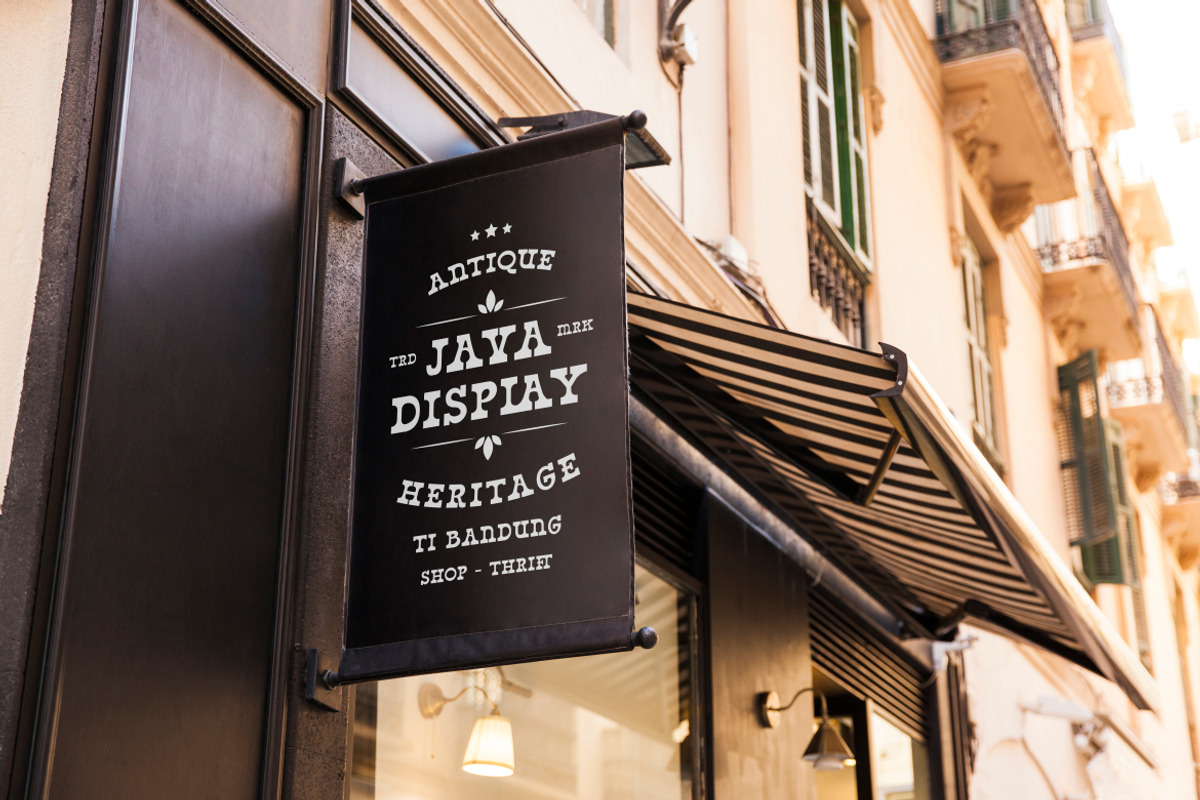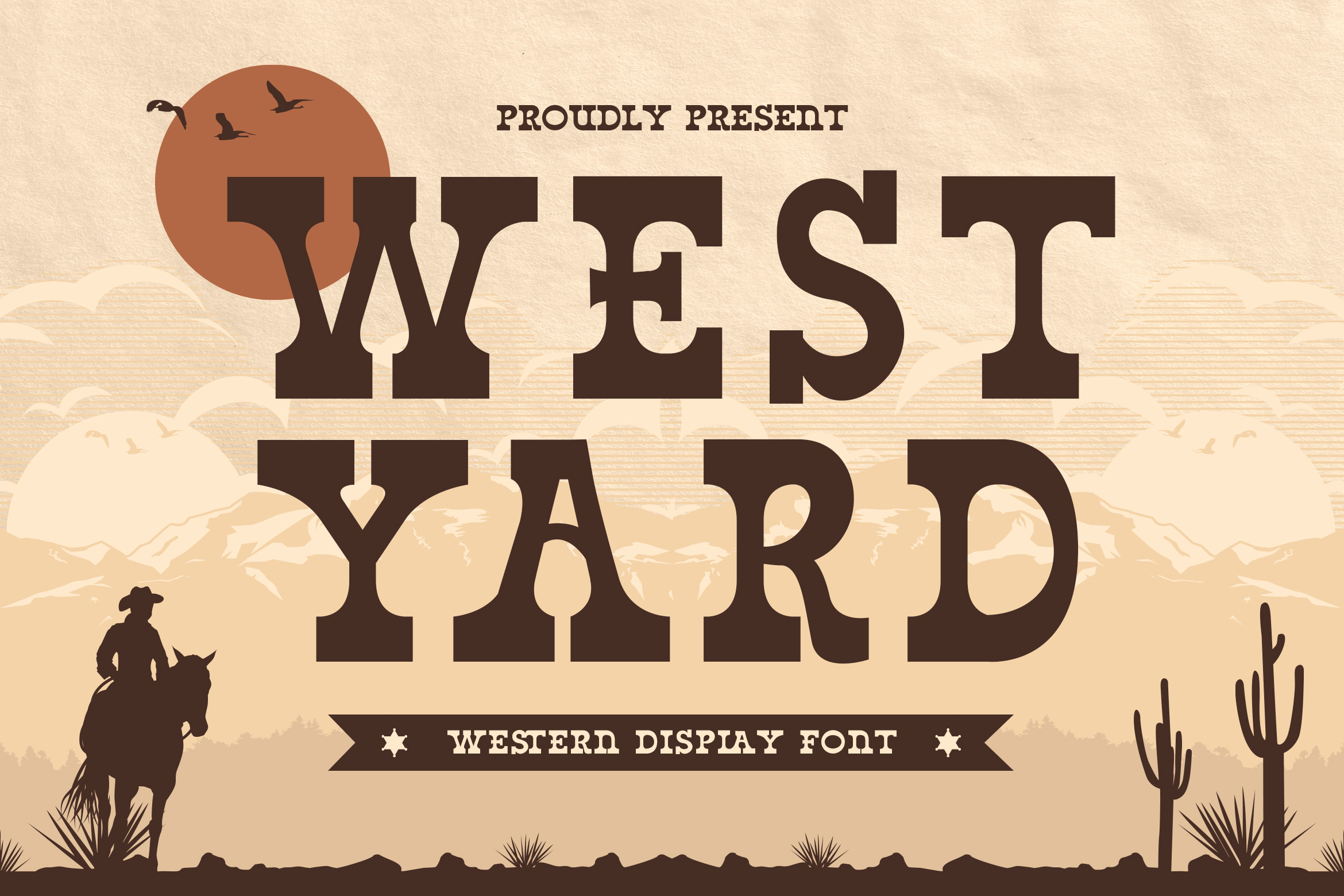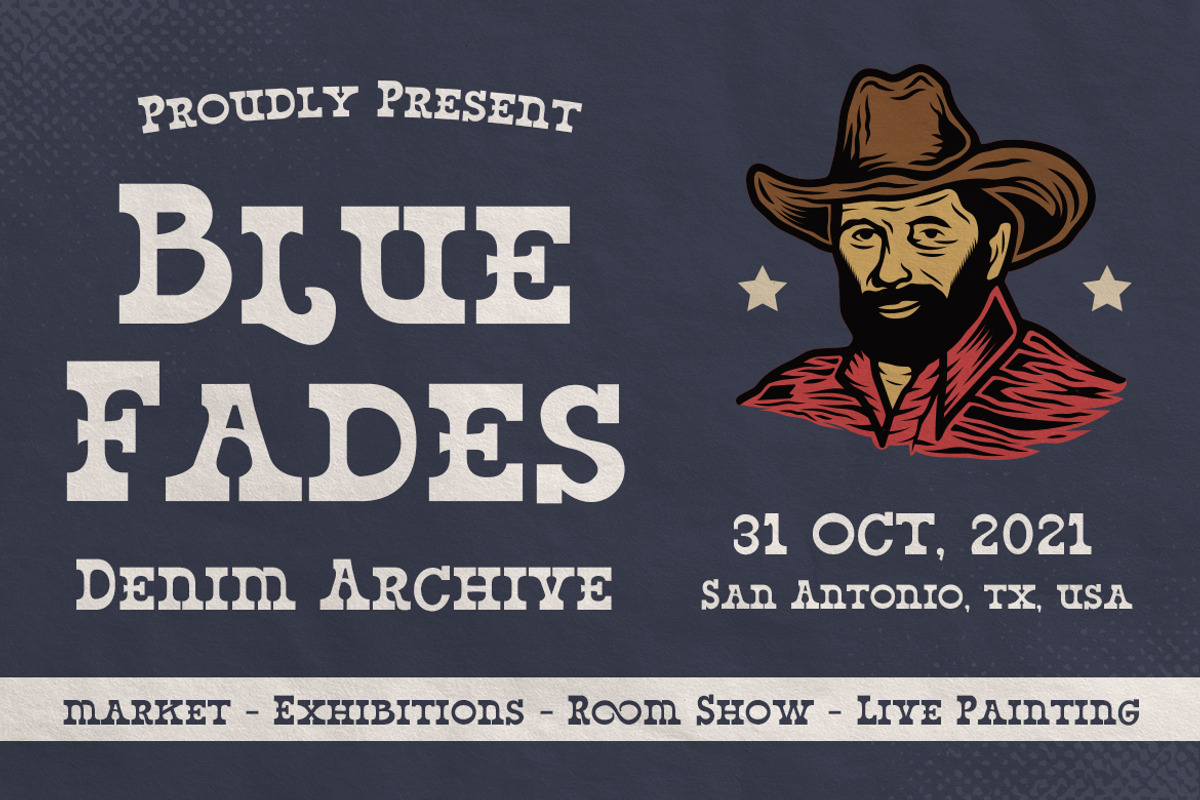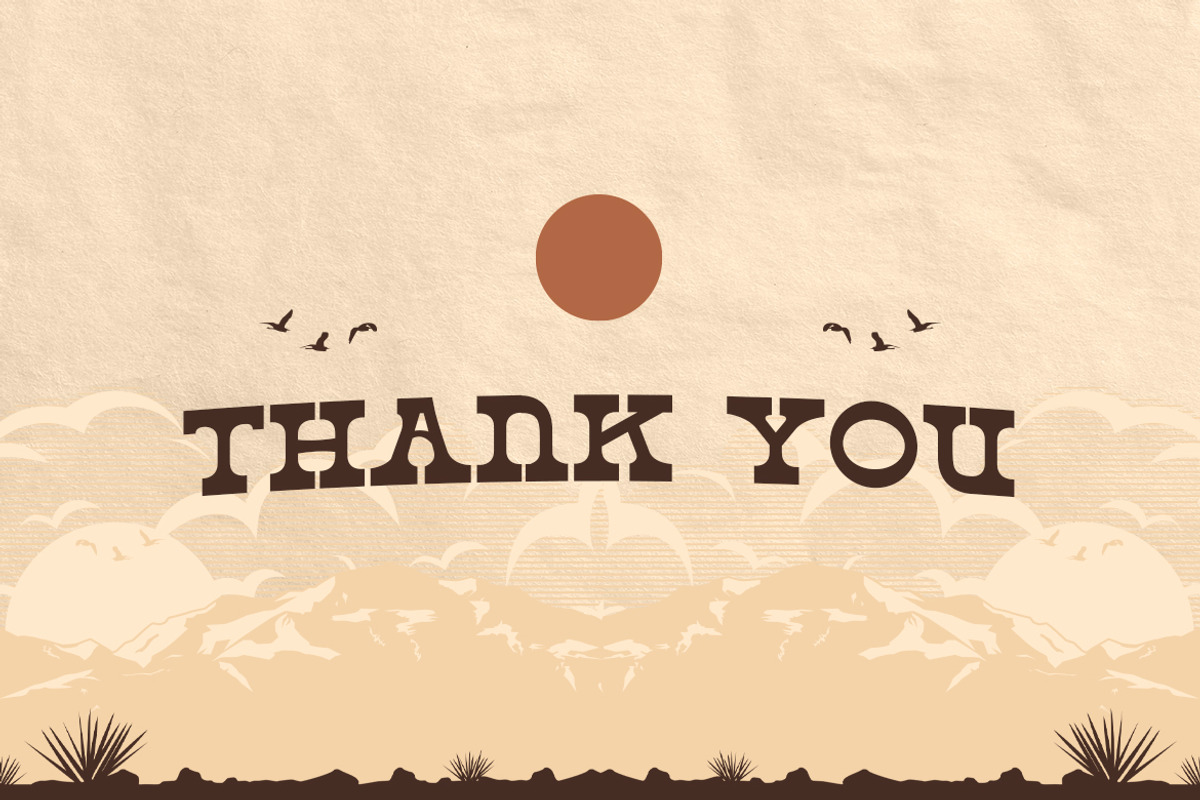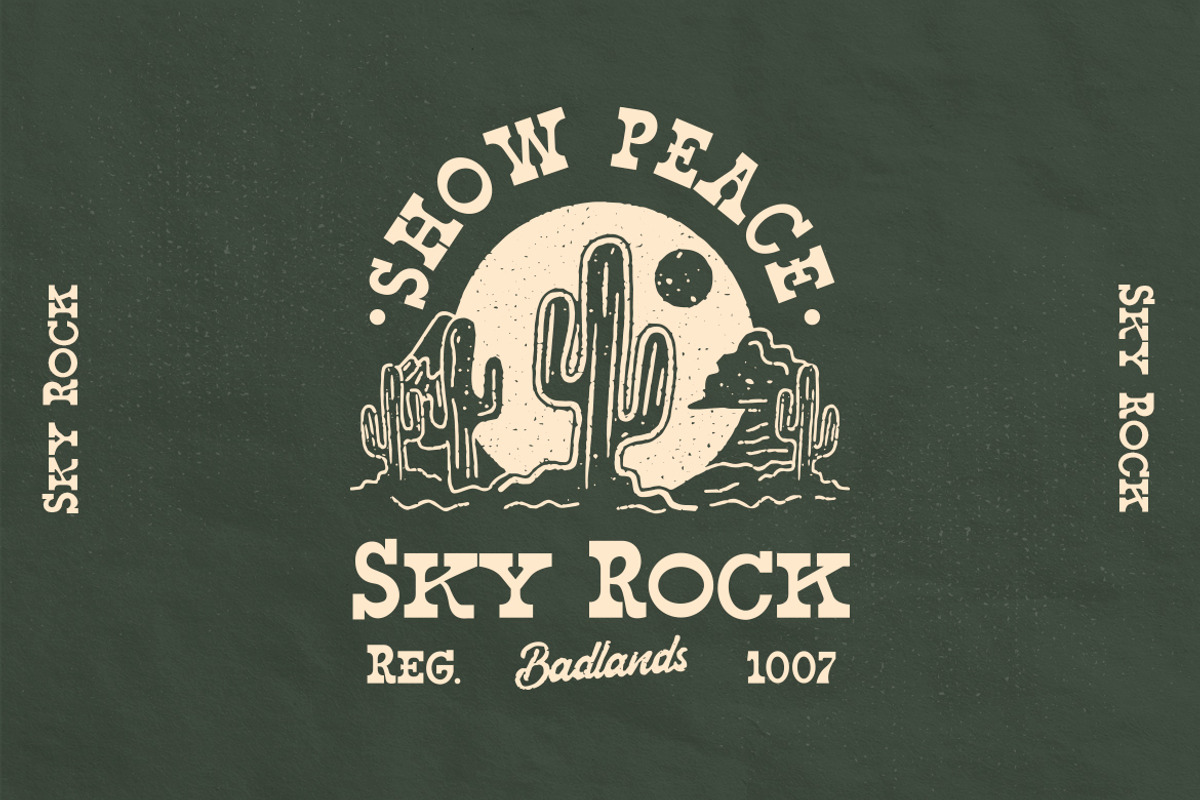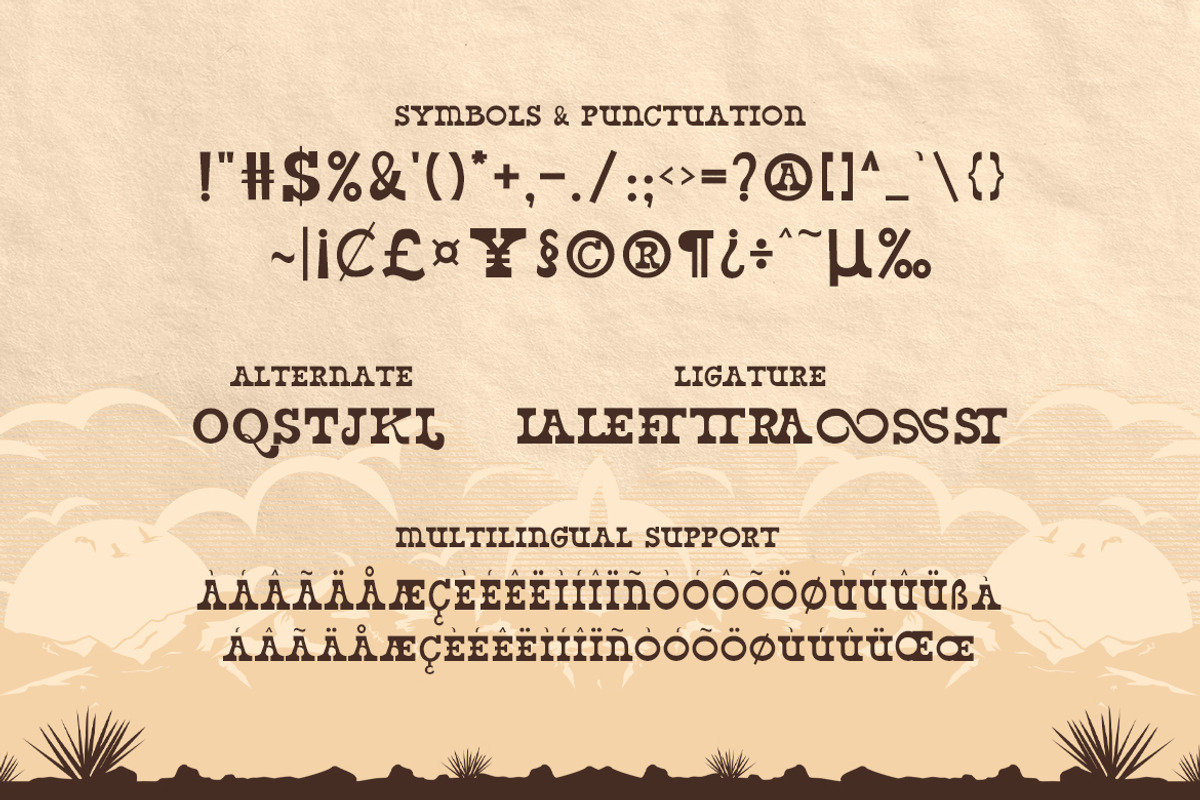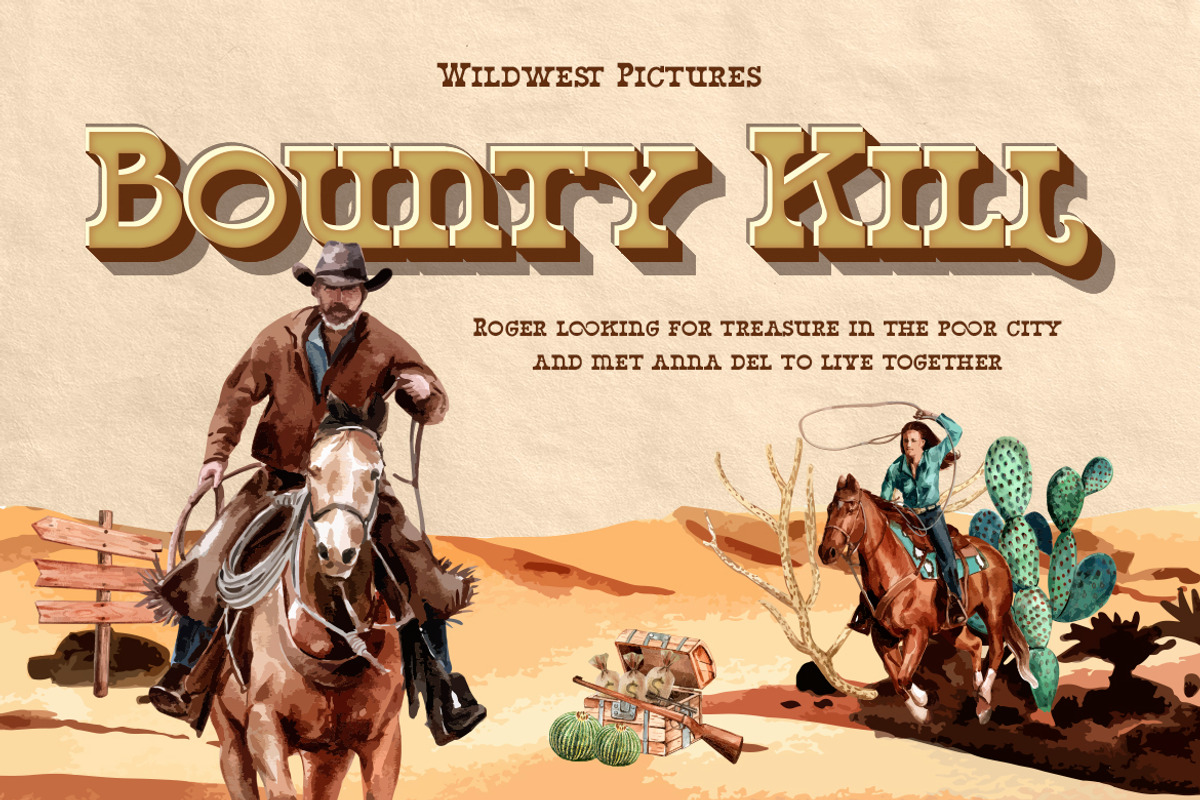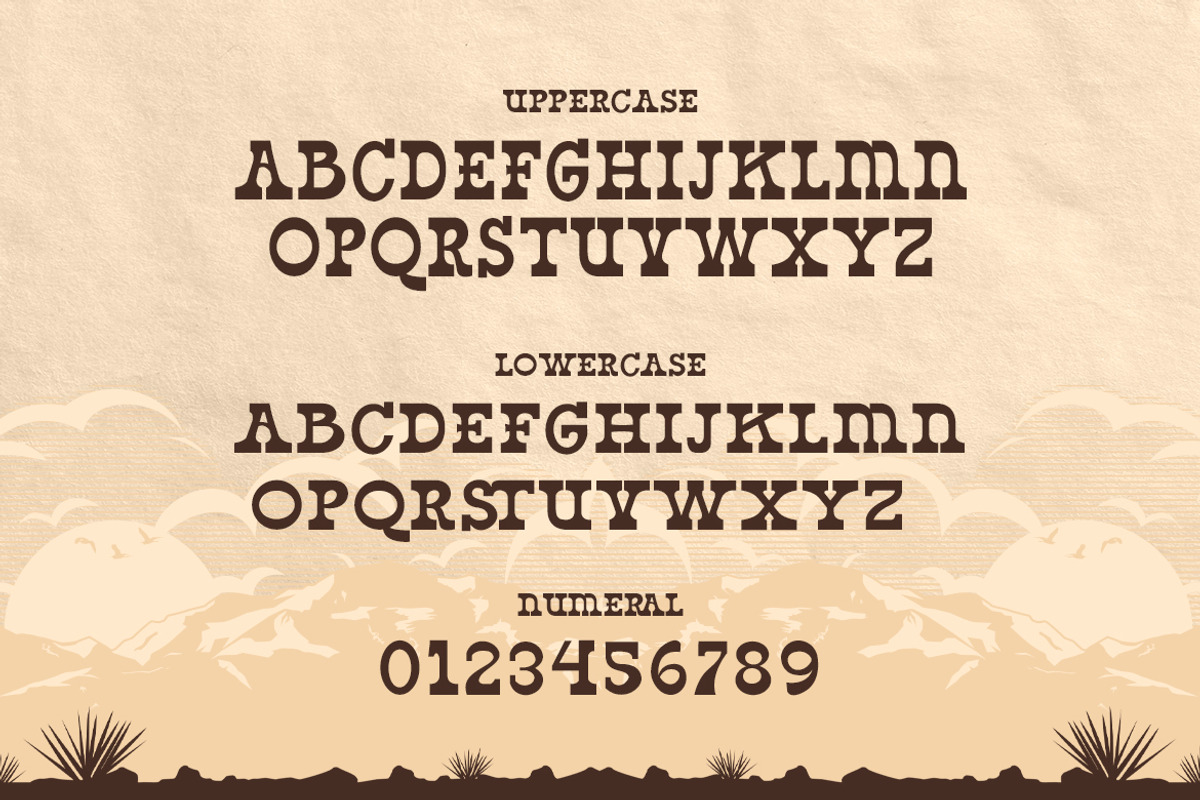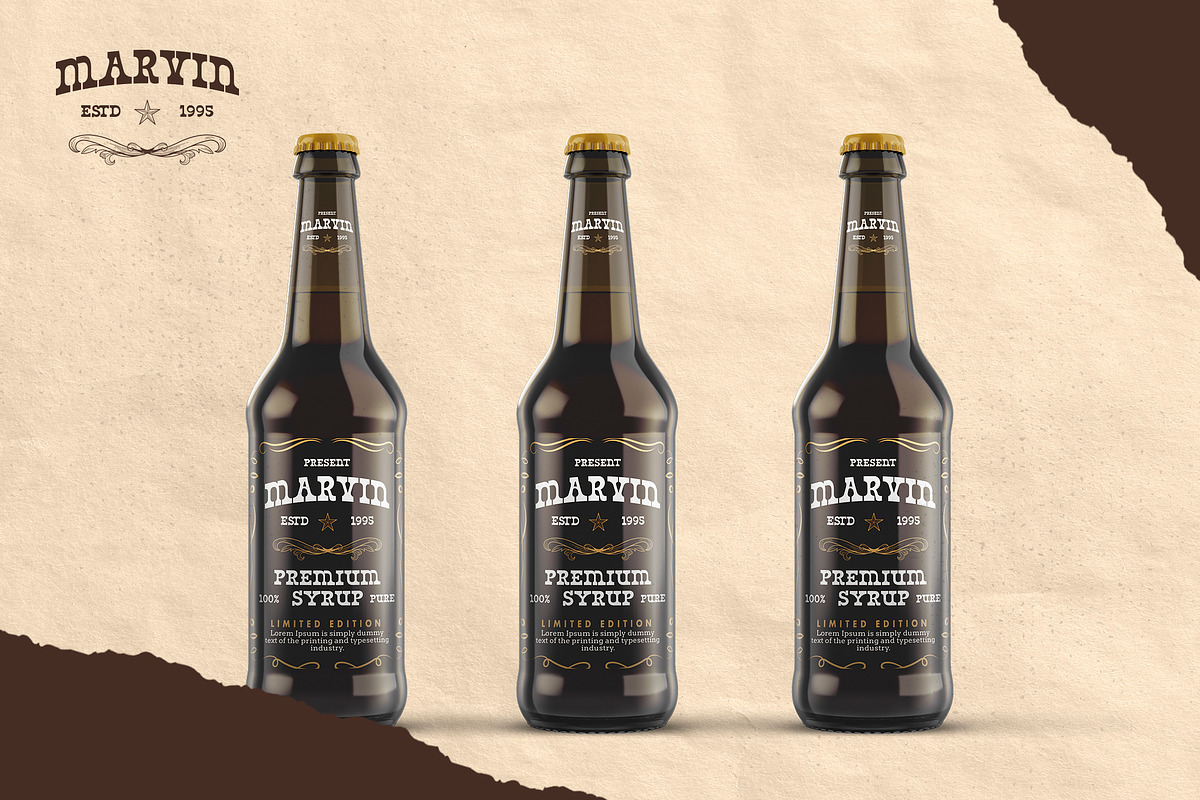
West Yard - Western Display Font
West Yard is a bold, western looking display font. Whether you are using it for cartoon-related designs, children’s games, quotes, titles, brand names, book covers, posters, or just any creation that requires a touch of beauty, this font is a great choice.
- Symbols & Punctuation
- Numeral